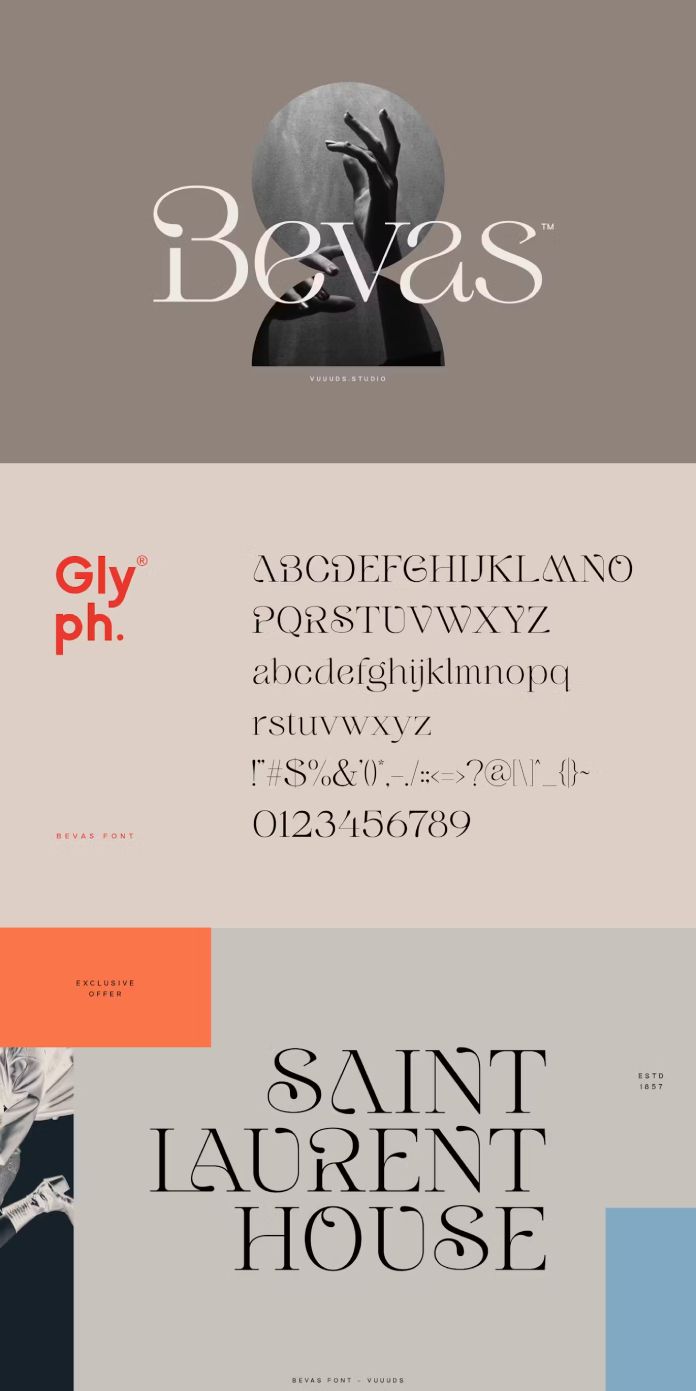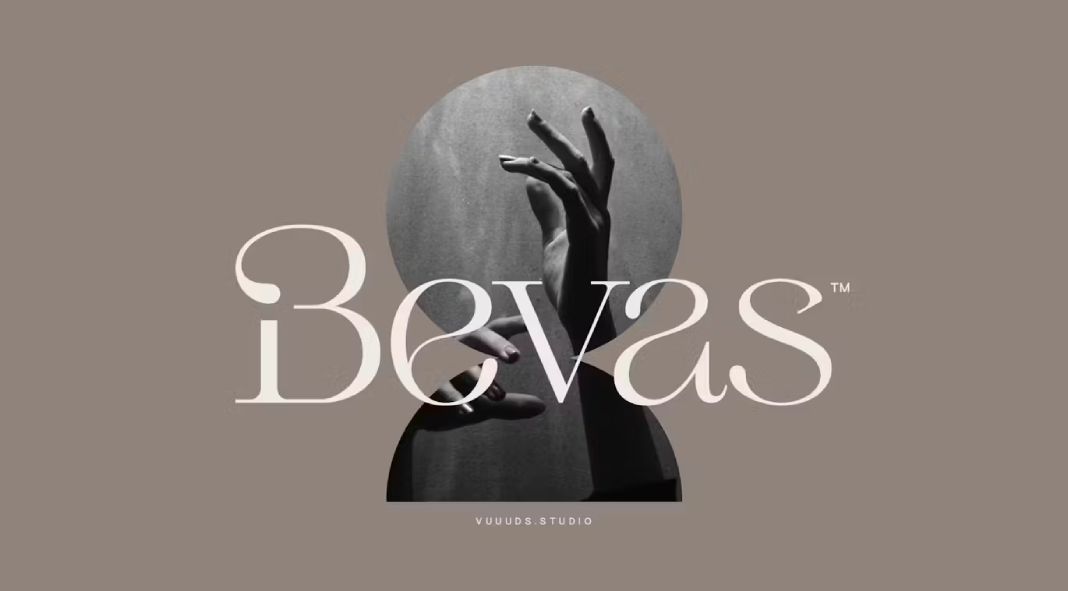
For designers looking to add a touch of sophistication to their work, the Bevas typeface is a must-have. Designed by Vuuuds studio, Bevas is a decorative script font that boasts a unique and elegant aesthetic.
One of the things that sets Bevas apart is the care and attention that has gone into crafting each individual glyph. Unlike many other script fonts, which can sometimes appear generic or derivative, Bevas has a character all of its own. The letters in Bevas are not simply variations of a standard typeface; they have been meticulously designed to create a truly unique and visually appealing look.
Another feature that makes Bevas so versatile is its inclusion of beautiful alternate glyphs. These glyphs can be accessed via Font Book (Mac users) or Windows Character Map (Windows users), and they provide designers with even more creative options. With Bevas, you can truly customize your text to create a look that is perfect for your project.
But Bevas is not just about looks; it is also a highly functional font. As a display font, Bevas is perfect for headlines, logos, and other design elements where you want to make a statement. The font’s elegant curves and flourishes will add a touch of class to any project.
So, if you are looking for a script font that is both unique and elegant, then Bevas is the perfect choice for you. With its beautiful alternate glyphs and its highly functional design, Bevas is a font that will help you take your design projects to the next level.
Here are some additional tips for using the Bevas typeface:
- Because Bevas is a display font, it is best used sparingly. Too much Bevas can overwhelm your design.
- Bevas pairs well with clean, sans-serif fonts for body copy.
- Bevas can be used to create a vintage or retro look.
- Experiment with the different alternate glyphs to create a unique look for your text.
With a little creativity, the Bevas typeface can be a valuable asset to any designer’s toolbox.